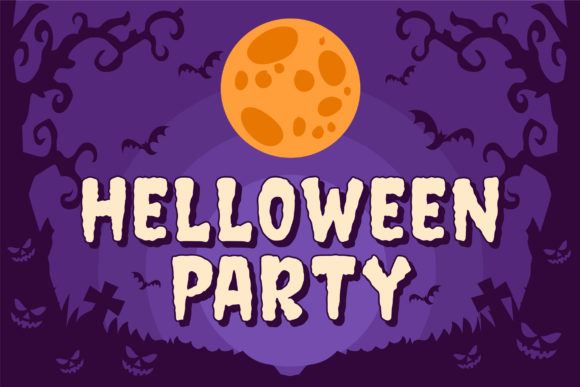
Black Night Font: The Perfect Spooky Display Font for Halloween
Are you looking for a font that captures the essence of Halloween? Look no further than the Black Night font. This fun and spooky display font is perfect for any Halloween-themed project, adding a touch of whimsy and eeriness to your designs. In this article, we’ll explore the features and benefits of the Black Night font, and how you can use it to create spook-tacular designs.
What is Black Night Font?
Black Night font is a display font designed specifically for Halloween-themed projects. It’s a unique and creative font that combines spooky and whimsical elements, making it perfect for creating eye-catching designs. The font features bold and chunky letters with a distressed texture, giving it a haunting and eerie feel.
Key Features of Black Night Font
- Unique and Creative Design: Black Night font has a one-of-a-kind design that’s sure to grab attention.
- Spine-Chilling Texture: The distressed texture of the font gives it a spooky and eerie feel.
- Whimsical Twist: The font has a playful and whimsical twist, making it perfect for Halloween-themed projects.
- Easy to Read: Despite its bold and chunky design, the font is easy to read, even at smaller sizes.
How to Use Black Night Font
Black Night font is perfect for a variety of Halloween-themed projects, including:
- Halloween Posters and Flyers: Create eye-catching posters and flyers for Halloween parties, haunted houses, and other spooky events.
- Social Media Graphics: Use the font to create spooky social media graphics, including Facebook posts, Instagram stories, and Twitter headers.
- Halloween-themed Website Headers: Add a touch of spookiness to your website with a Black Night font header.
- T-Shirts and Merchandise: Use the font to create spooky t-shirts, hoodies, and other merchandise.
Tips for Using Black Night Font
Tip 1: Use it Sparingly
While Black Night font is perfect for Halloween-themed projects, it’s essential to use it sparingly. Use it for headings and titles, and pair it with a simpler font for body text.
Tip 2: Experiment with Colors
Black Night font looks great in bold and bright colors. Experiment with different colors, including oranges, purples, and blacks, to create a unique and eye-catching design.
Tip 3: Add Texture and Patterns
To add an extra layer of spookiness to your design, try adding texture and patterns. Use images of spider webs, bats, or other Halloween-themed elements to create a haunting design.
Black Night font is a fun and spooky display font that’s perfect for any Halloween-themed project. Its unique and creative design, combined with its whimsical twist, makes it a great addition to any designer’s font collection. With its ease of use and versatility, Black Night font is sure to become a favorite among designers and non-designers alike.